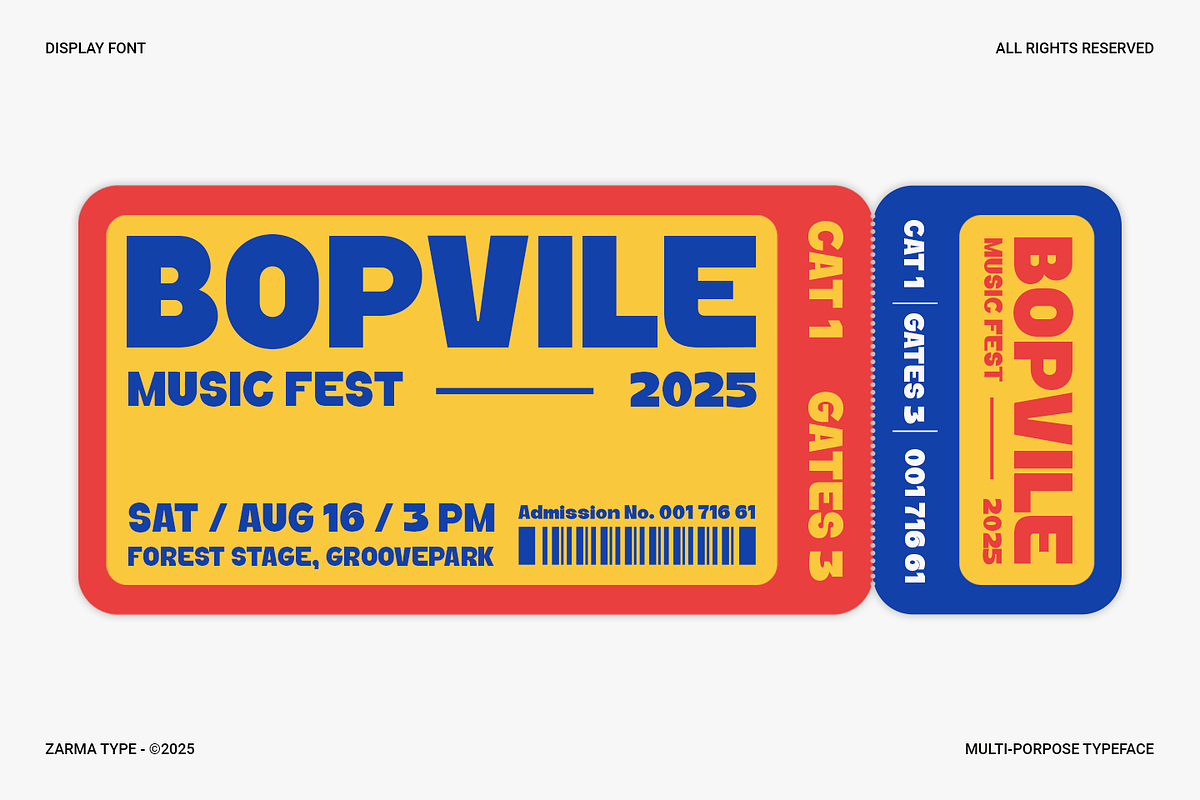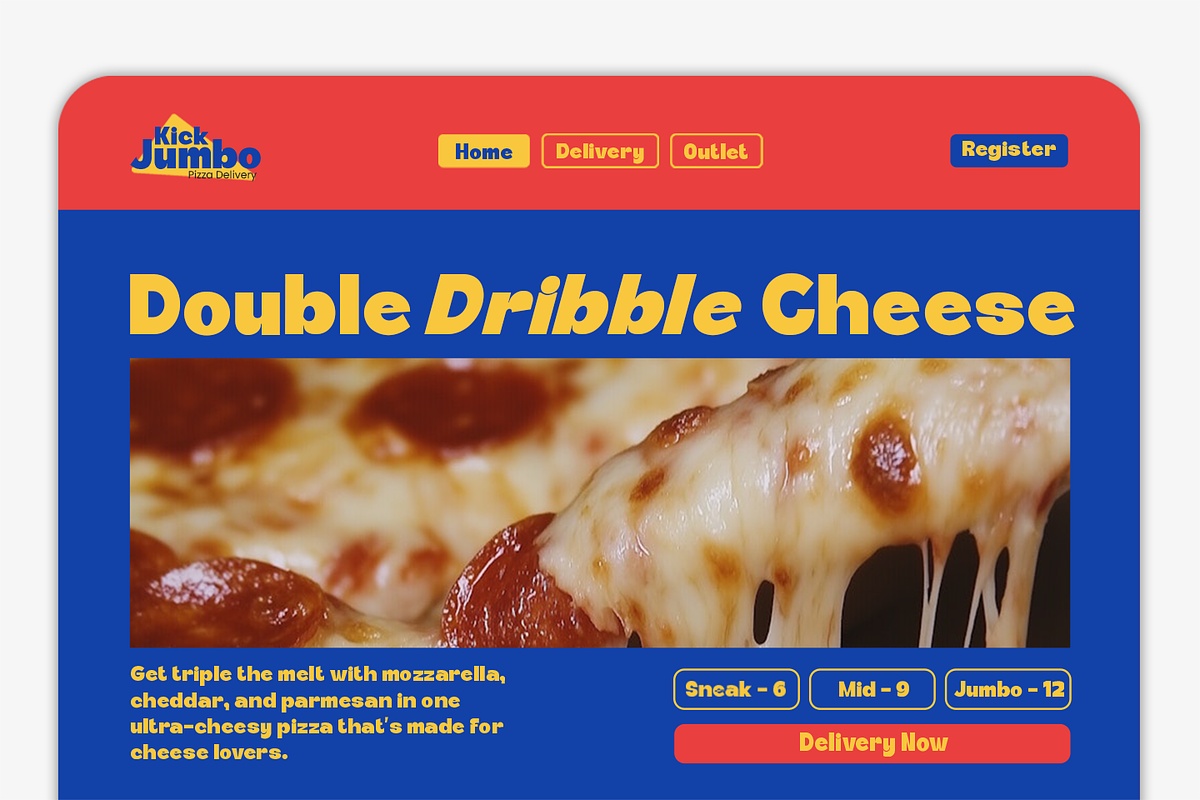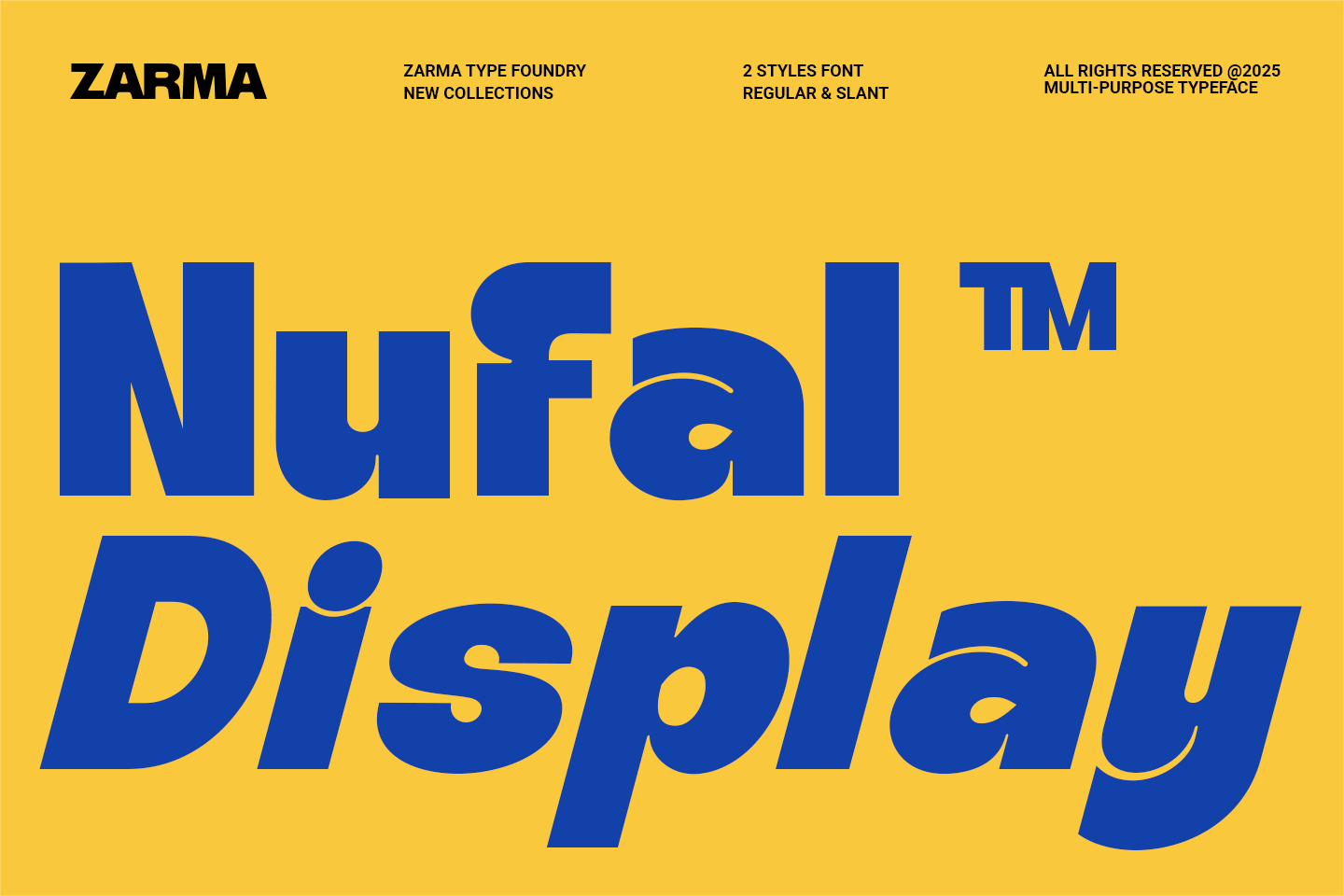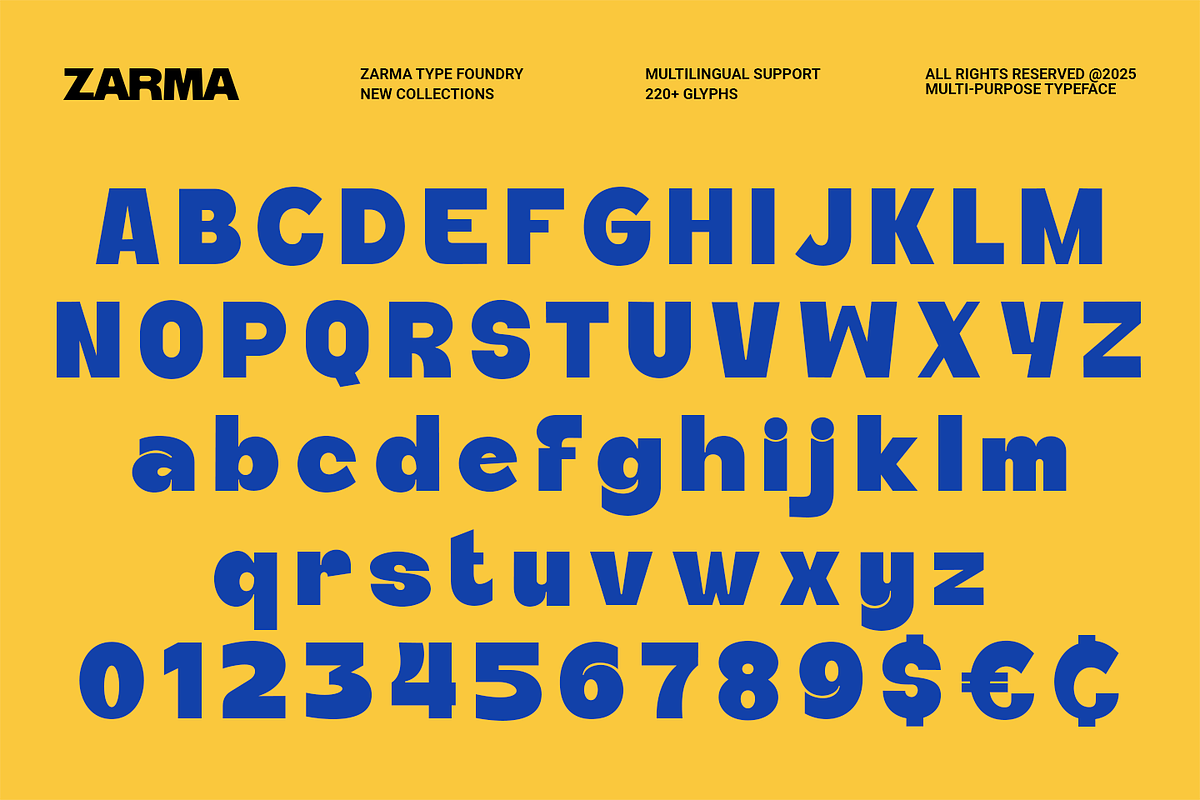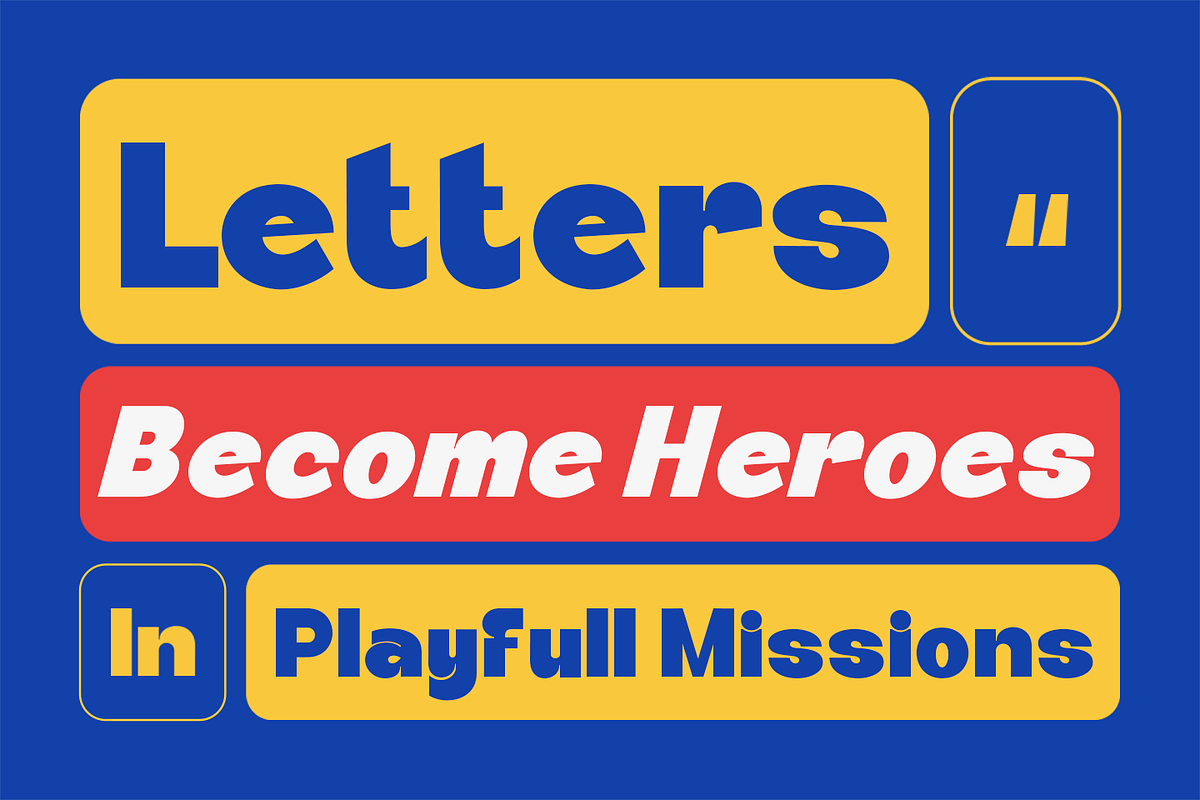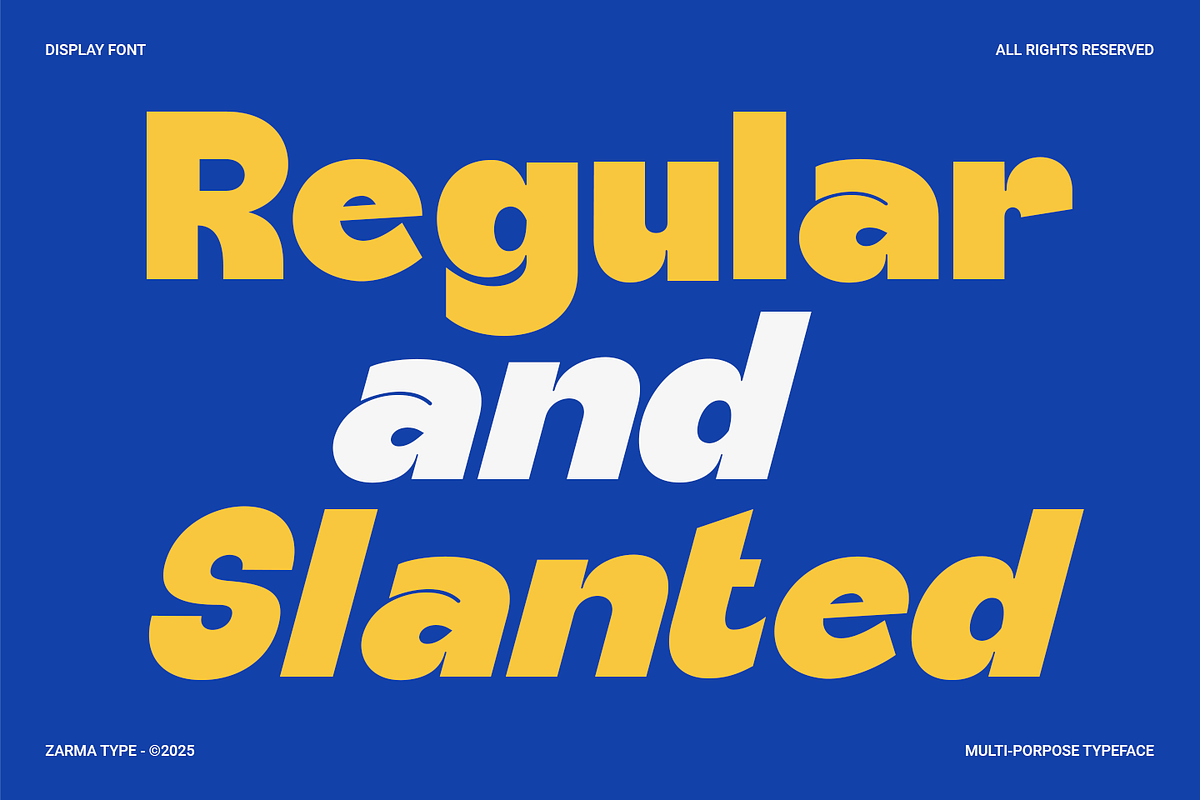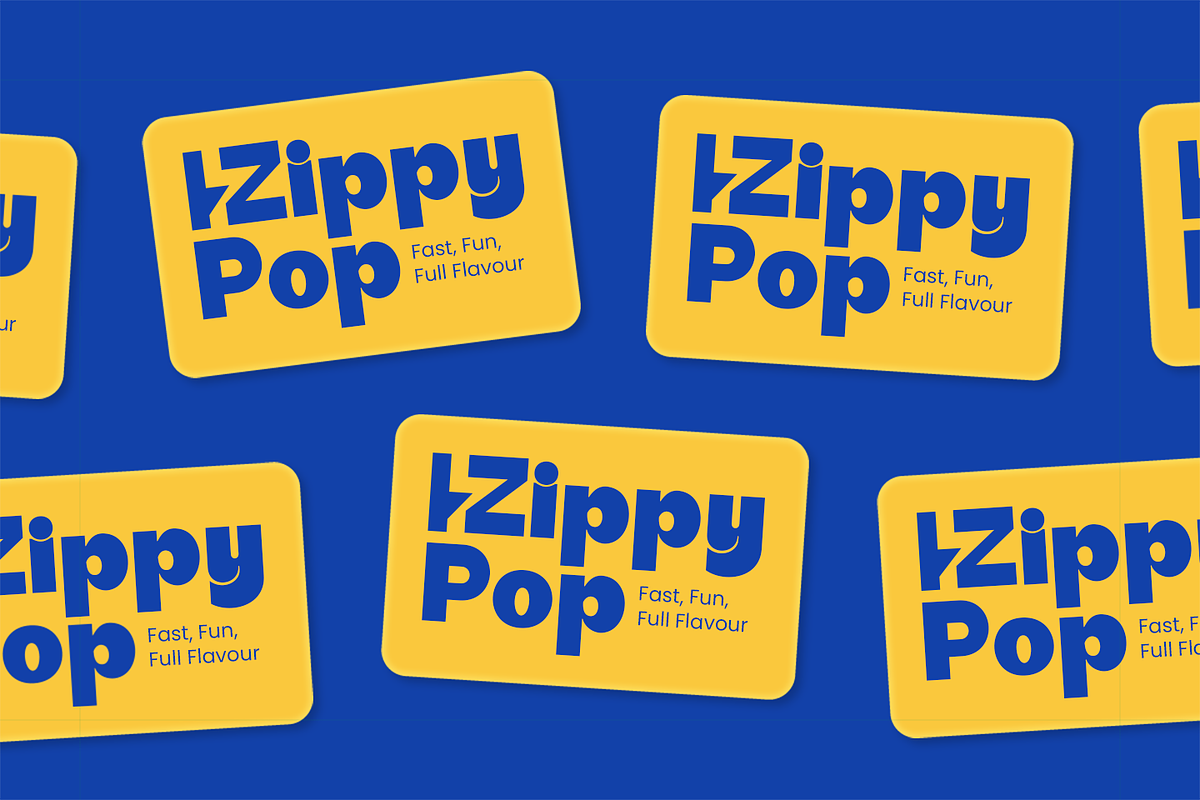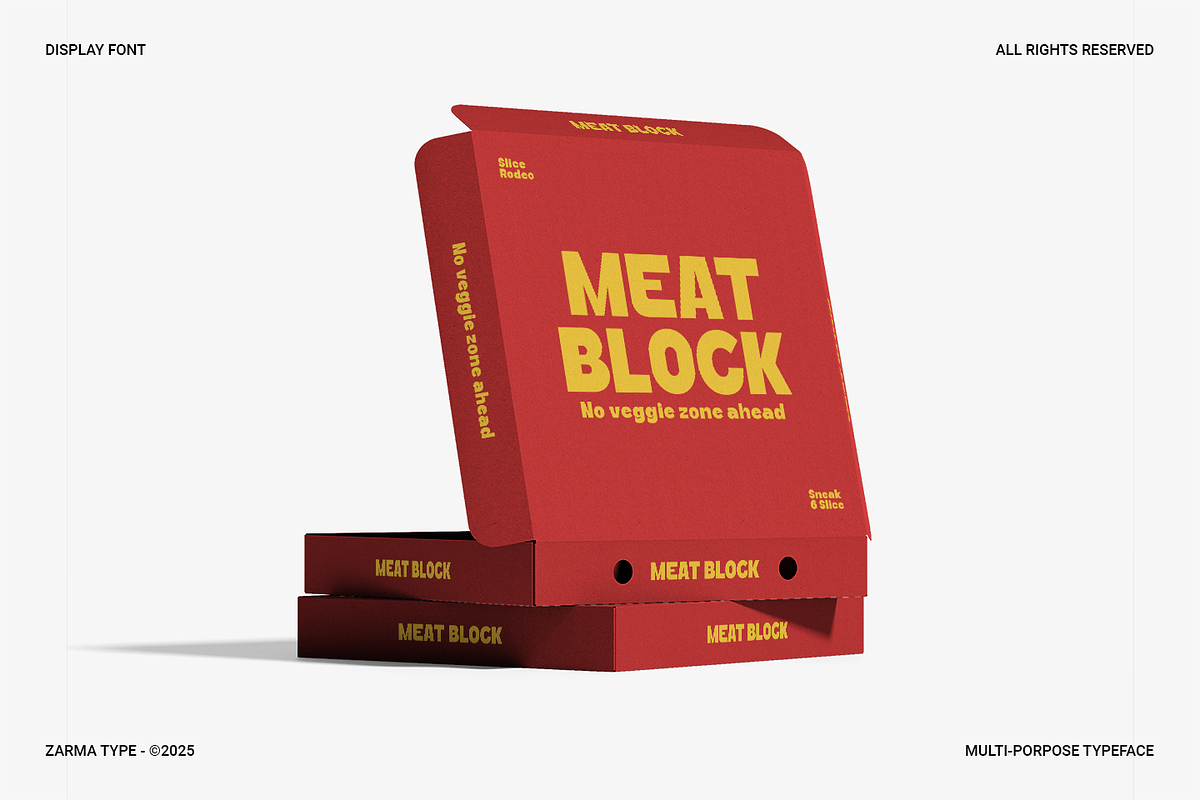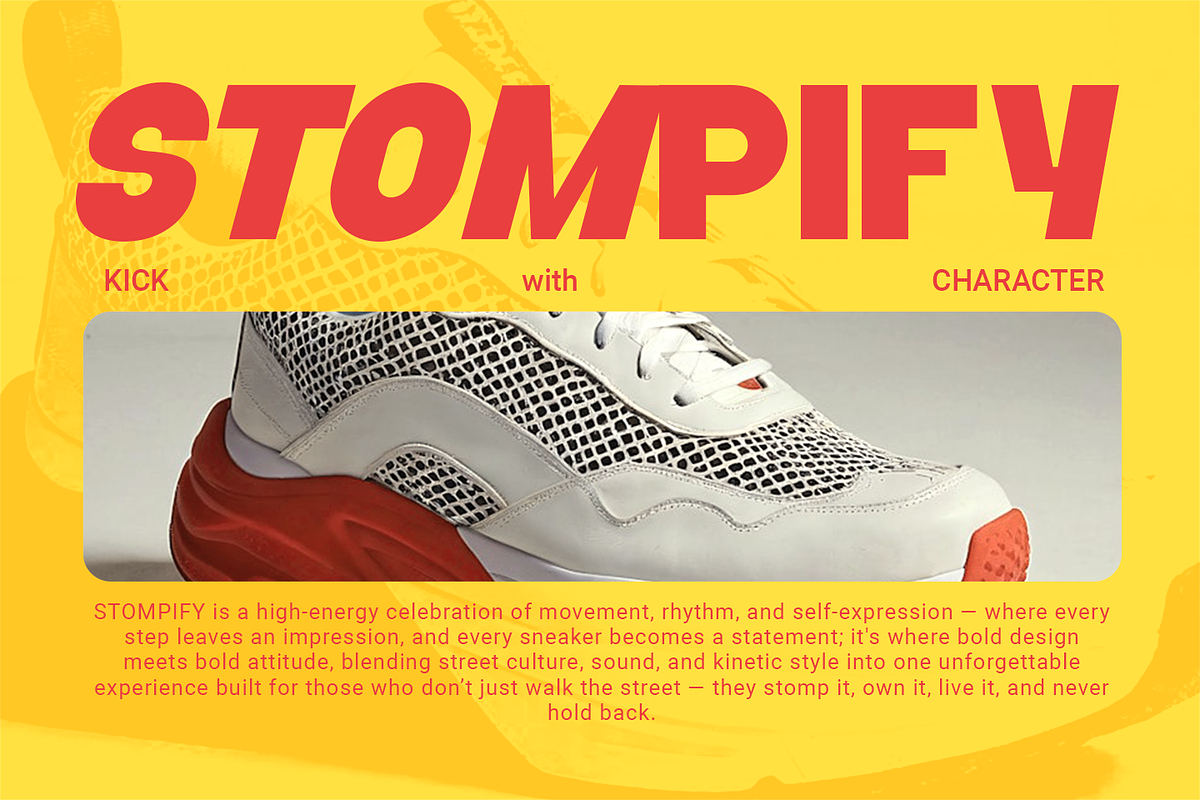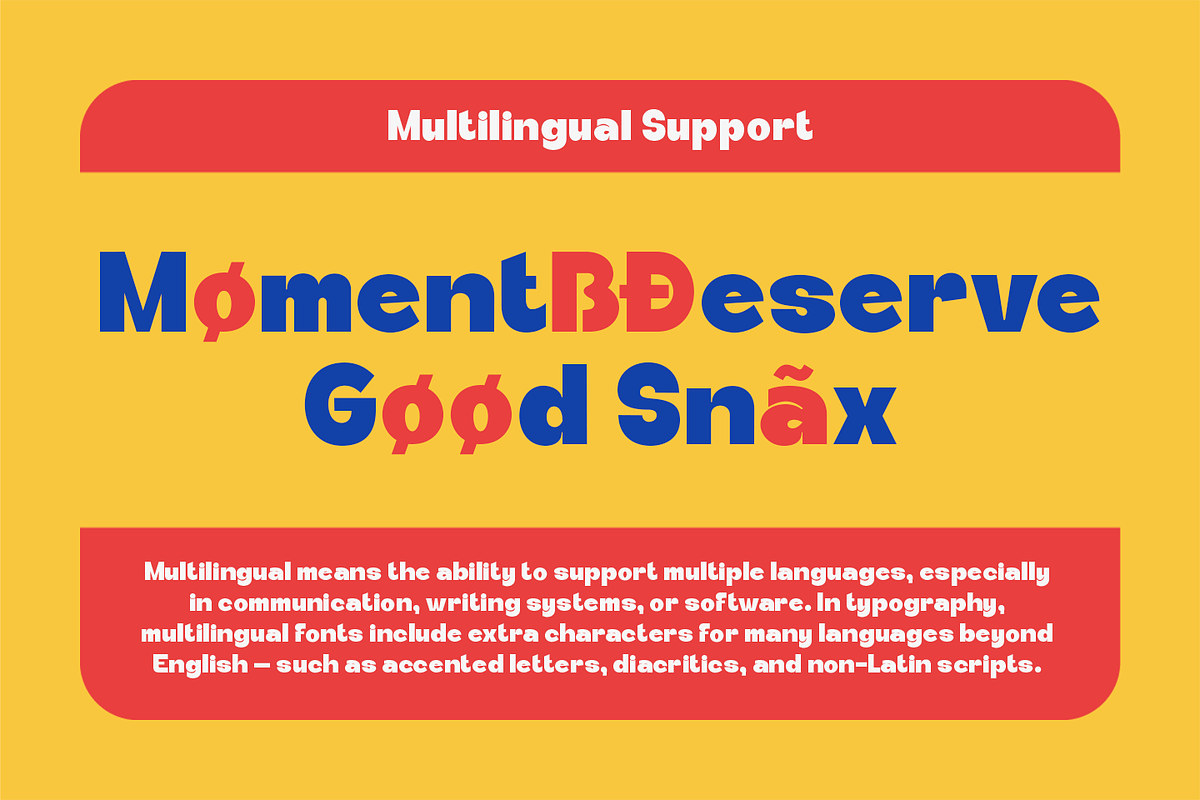
Nufal - Bold Display Font
Nufal is a bold display font packed with quirky charm and expressive energy, making every word feel like a main character. With thick, strong strokes, playful slants, and a modern-retro color palette influence, Nufal brings nostalgic punch and fun-forward appeal to branding, packaging, and youth-oriented projects. Its versatile balance between loud character and clean readability allows it to shine across digital and print media.
Designed with designers, creatives, and trendsetters in mind, Nufal includes multilingual support, uppercase and lowercase sets, numbers, and symbols. Its unique Regular and Slanted styles give you room to play with emphasis and motion while maintaining a cohesive look that’s strong and memorable.
- Food & everage packaging
- Streetwear branding
- Retro posters
- Web banners
- Kids products
- Social media content and apps
- 2 Styles (Regular & Slant)
- Uppercase and Lowercase Character Set
- Numbers and Punctuation
Nufal turns every word into a hero—perfect for creatives who want their type to be bold, vibrant, and impossible to ignore. Add it to your collection today and start designing with character.